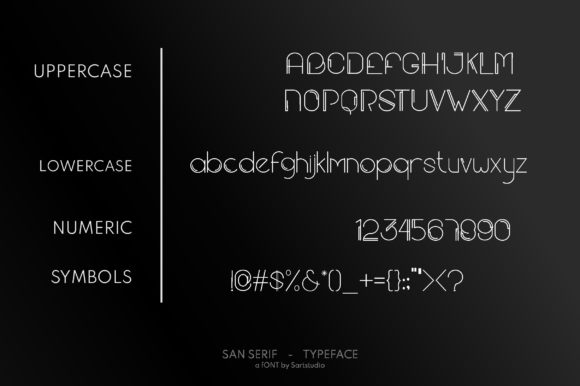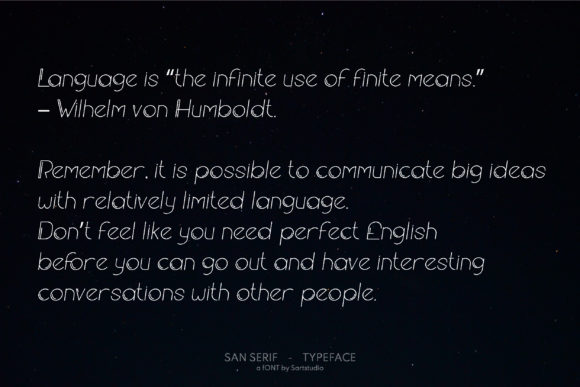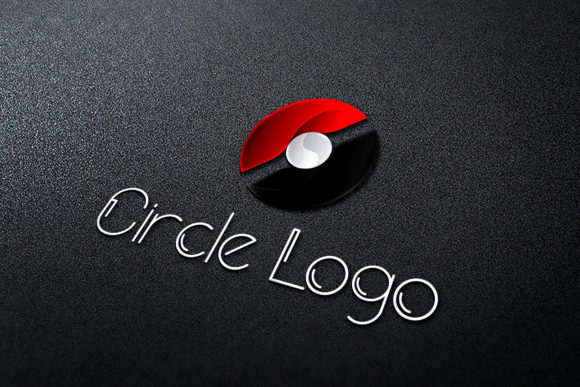
Fortunately Font: The Modern Sans Serif for Futuristic Designs
In the world of typography, a font can make or break a design. With the ever-evolving landscape of digital and print media, designers are constantly on the lookout for fresh and versatile typefaces that can elevate their creations. Fortunately Font is one such gem that has been making waves in the design community. In this article, we’ll dive into the world of Fortunately Font, exploring its features, benefits, and uses.
What is Fortunately Font?
Fortunately Font is a simple and modern sans serif font with a futuristic design. Its neat and beautiful arrangement of letters makes it an outstanding choice for both formal and non-formal designs. The font boasts a clean and minimalist aesthetic, making it perfect for designers who want to add a touch of sophistication to their work.
Key Features of Fortunately Font
- Modern Sans Serif Design: Fortunately Font features a sleek and contemporary sans serif design that is perfect for modern designs.
- Futuristic Aesthetic: The font’s futuristic design makes it ideal for projects that require a cutting-edge look.
- Neat and Beautiful Arrangement: The font’s letters are arranged in a neat and beautiful way, making it perfect for both formal and non-formal designs.
- Versatile: Fortunately Font is versatile and can be used in a variety of design projects, from branding and advertising to digital media and print.
Benefits of Using Fortunately Font
So, why should designers choose Fortunately Font for their projects? Here are some benefits of using this amazing typeface:
- Enhances Readability: The font’s clean and simple design makes it easy to read, even in small sizes.
- Perfect for Digital Media: Fortunately Font is optimized for digital media, making it perfect for websites, social media, and mobile apps.
- Unique and Memorable: The font’s futuristic design makes it stand out from the crowd, making it perfect for brands that want to create a lasting impression.
- Easy to Pair: Fortunately Font is easy to pair with other fonts, making it a great addition to any design project.
Use Cases for Fortunately Font
Fortunately Font is a versatile typeface that can be used in a variety of design projects. Here are some use cases:
- Branding and Advertising: Use Fortunately Font to create a modern and sophisticated brand identity.
- Digital Media: Use the font for websites, social media, and mobile apps to create a seamless user experience.
- Print Design: Use Fortunately Font for print designs such as brochures, flyers, and posters to add a touch of modernity.
- Packaging Design: Use the font for packaging design to create a unique and memorable brand experience.
Tips for Using Fortunately Font
Here are some tips for using Fortunately Font in your design projects:
- Use it as a Headline Font: Fortunately Font is perfect for headlines and titles, so use it to create a bold and eye-catching design.
- Pair it with Other Fonts: Experiment with pairing Fortunately Font with other fonts to create a unique and interesting design.
- Adjust the Font Size: Adjust the font size to create visual hierarchy and add emphasis to important text.
- Experiment with Colors: Experiment with different colors to create a design that pops.
| Font Name | Fortunately Font |
| Author | sartstudio |
In conclusion, Fortunately Font is a modern sans serif font with a futuristic design that is perfect for designers who want to add a touch of sophistication to their work. Its neat and beautiful arrangement of letters makes it an outstanding choice for both formal and non-formal designs. With its versatility, readability, and unique aesthetic, Fortunately Font is a great addition to any design project.